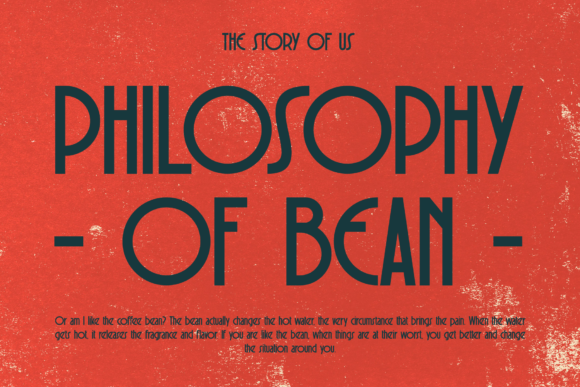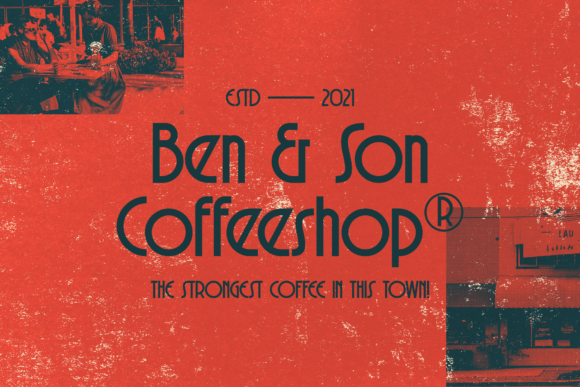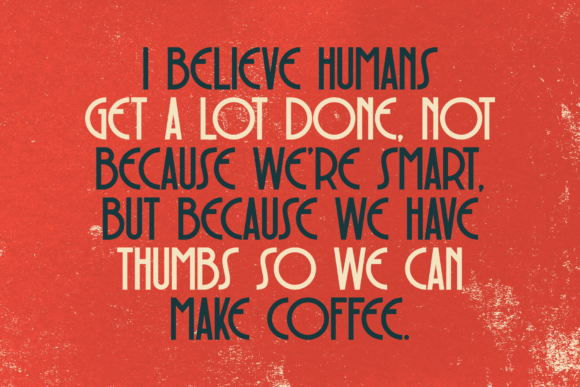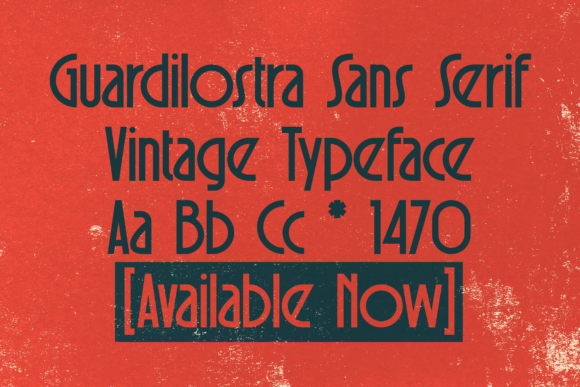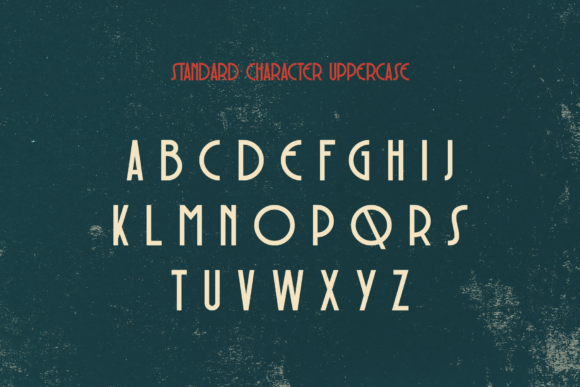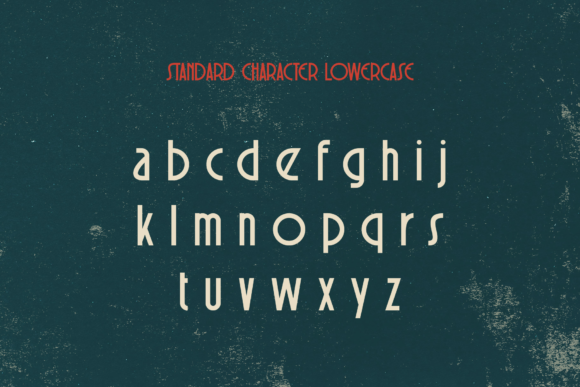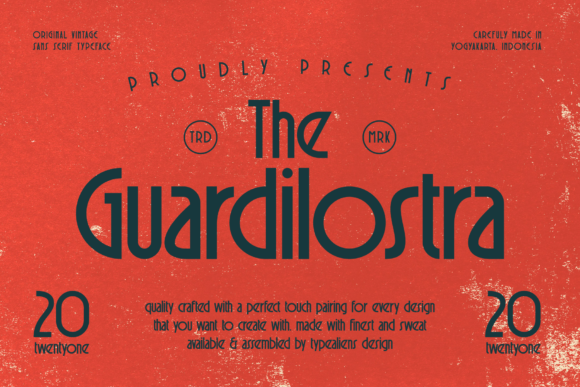
Introducing Guardilostra Font: Elevate Your Designs with a Vintage Twist
In the world of typography, fonts play a crucial role in conveying the tone and aesthetic of a design. For designers and crafters looking to add a touch of nostalgia and uniqueness to their work, Guardilostra Font is an excellent choice. This vintage-styled, sans-serif font is not only cool and adaptable but also versatile, making it perfect for a wide range of design projects.
What Makes Guardilostra Font Stand Out?
Guardilostra Font boasts a distinctive, retro vibe that sets it apart from more traditional fonts. Its sans-serif design ensures clarity and readability, while its vintage style adds a layer of sophistication and charm. This combination makes Guardilostra an ideal choice for designers looking to create eye-catching and memorable designs.
Key Features of Guardilostra Font
- Vintage Style: Guardilostra’s retro aesthetic is reminiscent of classic designs from the past, making it perfect for projects that require a nostalgic feel.
- Unique and Cool: The font’s unique design elements ensure that your designs stand out from the crowd, giving them a cool and modern edge.
- Sans Serif: The clean lines of Guardilostra’s sans-serif design make it highly readable, even at smaller sizes.
- Adaptable: Whether you’re working on a logo, poster, or digital project, Guardilostra’s versatility ensures it will fit right in.
Use Cases for Guardilostra Font
Guardilostra Font’s adaptability and unique style make it suitable for a variety of design projects. Here are some use cases where Guardilostra truly shines:
- Branding and Logos: Create a memorable brand identity with Guardilostra’s distinctive vintage style.
- Posters and Flyers: Add a retro touch to your promotional materials and make them stand out.
- Digital Media: Use Guardilostra in your website designs, social media graphics, and video projects to add a unique flair.
- Crafting and DIY Projects: Perfect for crafters, Guardilostra can be used in handmade cards, scrapbooking, and other craft projects.
Tips for Using Guardilostra Font Effectively
To get the most out of Guardilostra Font, consider the following tips:
- Mix and Match: Combine Guardilostra with other fonts to create interesting contrasts and hierarchies in your designs.
- Play with Colors: Enhance Guardilostra’s vintage vibe with a thoughtful color palette that complements its retro style.
- Experiment with Sizes: Don’t be afraid to vary the font size to create visual interest and emphasize key elements in your design.
Guardilostra Font is a powerful tool for designers and crafters looking to infuse their projects with a unique, vintage flair. Its adaptability, readability, and distinctive style make it an excellent choice for a wide range of applications. Whether you’re creating a brand identity, designing promotional materials, or working on a craft project, Guardilostra is sure to elevate your designs and leave a lasting impression.